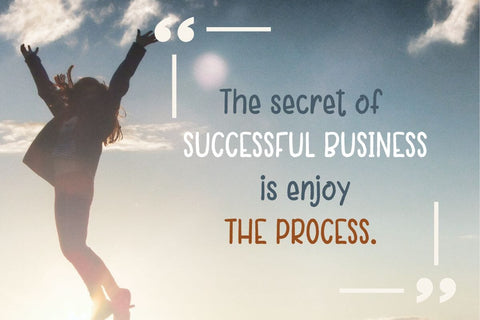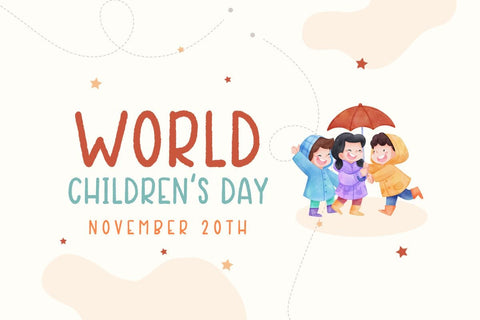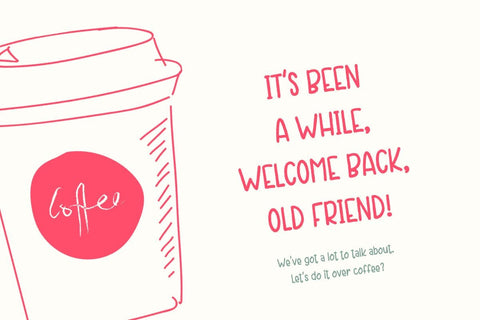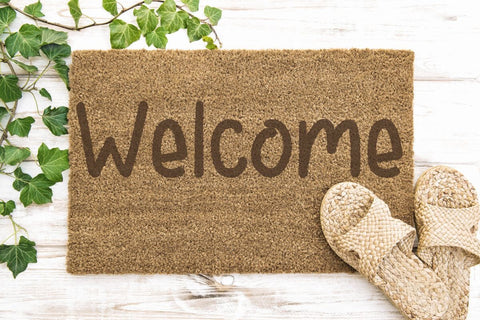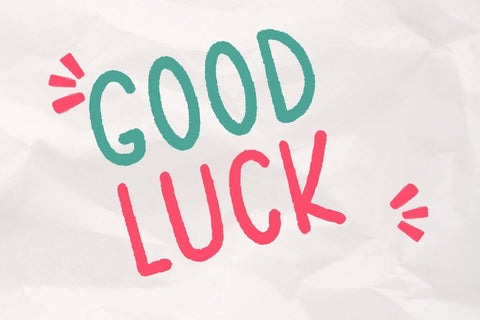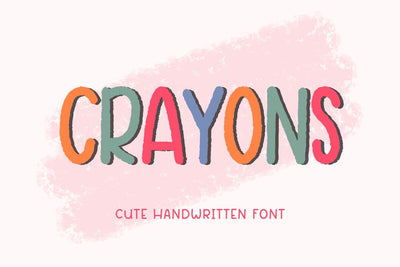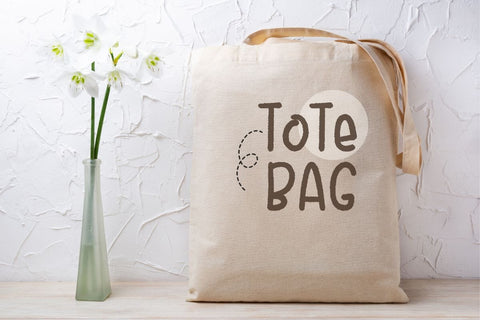
Crayons - Handwriting Font
Crayons is a cute and neat handwritten font. You can design it to match all your Back to School-themed projects. Perfect for banners, mugs, cards, shirts, stationery, social media posts, and more!